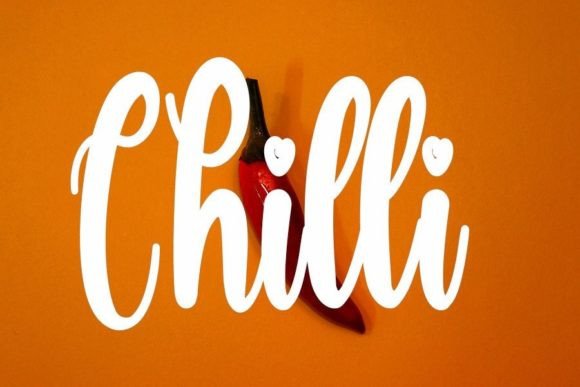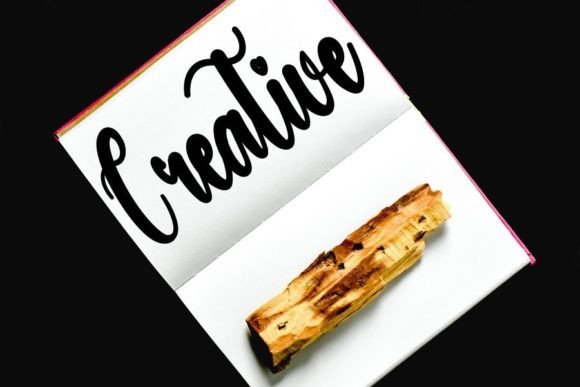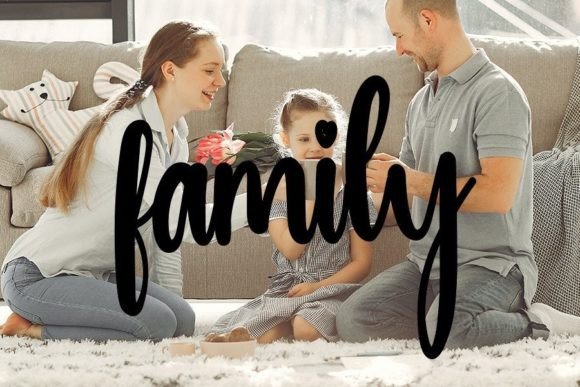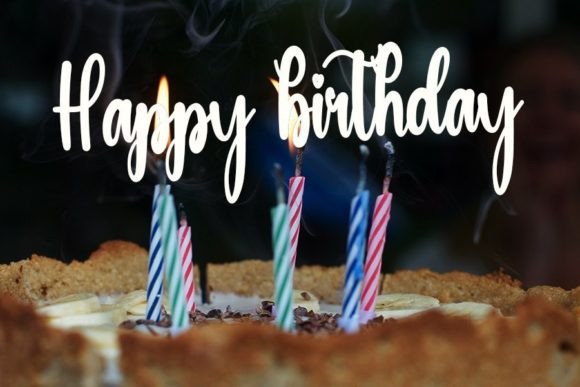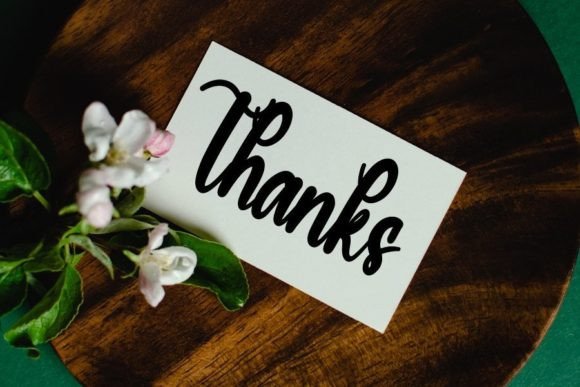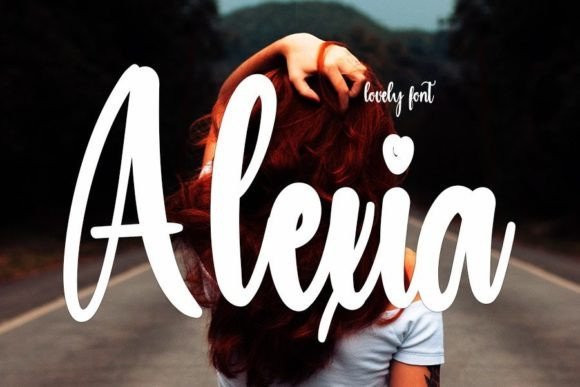
A Moment of Creative Inspiration
Do you remember that moment when a single font caught your eye and sparked a wave of creative ideas? For designers, it’s not uncommon to stumble upon a typeface that sets off a chain reaction of inspiration. For me, that moment came when I discovered the Alexia Font – a beautiful, handwritten font that exudes elegance and sophistication.
The Alexia Font is more than just a pretty face; it’s a valuable tool for designers looking to add a touch of whimsy and personality to their projects. With its distinct and timeless style, it’s perfect for creating spectacular designs that stand out from the crowd. Whether you’re working on a wedding invitation, a branding project, or a personal blog, the Alexia Font is sure to bring your vision to life.
So, what sets the Alexia Font apart from other fonts? Its unique blend of style and versatility makes it an essential addition to any designer’s toolkit. With the Alexia Font, the possibilities are endless, and the results are always stunning.
Alexia Font Key Features
• Size and Resolution: The font comes in 1 style with 2 weights (Light and Regular), with a resolution of 72 dpi and an optimal size for digital use.
• Unique Characteristics: Alexia Font features a beautiful, elegant script with a unique blend of modern and classic elements, making it perfect for invitations, wedding stationery, and other special occasions.
• Font Pairing: Alexia Font pairs well with a variety of font styles, including serif, sans-serif, and script fonts, making it a versatile choice for designers.
• Font Size and Line Spacing: Alexia Font is optimized for use at font sizes between 12pt and 24pt, with recommended line spacing of 1.2 to 1.5 times the font size.
Review of Alexia Font
Overall, I’m really impressed with the Alexia font. It has a unique and elegant feel that’s perfect for high-end branding or luxury packaging.
• ✨ Elegant and refined look, perfect for luxury brands
• ✨ Well-suited for use in packaging, logos, and signage
• ✨ Great for creating a sense of sophistication and elegance
• ⚠️ May not be suitable for use in large blocks of text, as it can be difficult to read
• ⚠️ May not be the best choice for digital screens, as it can appear pixelated
Overall, I’d say that Alexia font is a great choice for designers who are looking to create a high-end or luxurious feel in their designs. However, it’s not a one-size-fits-all solution, and it’s worth considering the limitations before making a decision.
Tips for Getting the Most Out of Alexia Font
Use Alexia Font to add a touch of elegance and sophistication to your designs. Pair it with bold fonts for contrast and create visually appealing headings. Experiment with different font sizes and styles to achieve the perfect balance.
Alexia Font is ideal for:
• Wedding invitations and stationery
• Corporate branding and marketing materials
• Editorial and publishing designs
• Special occasion cards and gifts
Alternatives to Alexia Font
Pacifico is a beautiful, elegant script font that is ideal for creating a luxurious and sophisticated look. It is perfect for use in branding, advertising, and packaging design. Pacifico has a more cursive and flowing feel compared to Alexia Font, which makes it a great choice for designs that require a more dynamic and expressive look.
Great Vibes is a modern, elegant script font that is perfect for use in a variety of designs, including branding, advertising, and editorial design. It has a more refined and polished feel compared to Alexia Font, making it a great choice for designs that require a more sophisticated and high-end look. Great Vibes is also highly legible, making it a great choice for use in body text.
Carolyna Pro is a modern, elegant script font that is perfect for use in a variety of designs, including branding, advertising, and editorial design. It has a more refined and polished feel compared to Alexia Font, making it a great choice for designs that require a more sophisticated and high-end look. Carolyna Pro is also highly customizable, making it a great choice for designers who want to create a unique and personalized look.
What is the recommended line height for Alexia Font?
The recommended line height for Alexia Font is between 1.2 and 1.5 times the font size. This allows for comfortable reading and optimal spacing between lines of text, ensuring that the font looks its best in various design contexts.